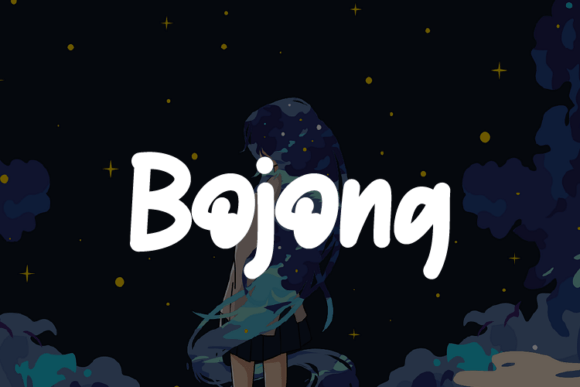
The Bojong Font: A Modern Elegance for Creative Minds
I’ll never forget the frustration of working on a design project, hours spent perfecting every detail, only to be held back by a font that just didn’t cut it. The lines were too harsh, the curves too bland, or the overall feel just didn’t match the vibe I was going for. If you’re a designer, crafter, or creative hobbyist, I’m sure you’ve been there too. That’s why I’m excited to share with you a game-changer in the world of typography: the Bojong font.
A Personal Encounter with Bojong
Recently, I had the pleasure of working on a branding project that required a font with a modern and elegant feel. After hours of searching, I stumbled upon Bojong, and it was love at first sight. This font is designed with flexibility and readability in mind, making it perfect for a wide range of media. Whether I’m working on a logo, a brochure, or a social media post, Bojong is now my go-to choice.
An Honest Review of Bojong
- ✨ Modern and elegant design: Bojong’s sleek lines and beautiful curves make it perfect for projects that require a touch of sophistication.
- ✅ Excellent readability: This font is designed to be easy on the eyes, making it perfect for body text, headings, and titles.
While Bojong is an excellent font, there are a few minor quirks to be aware of:
- ⚠️ Some glyphs may require additional setup: While Bojong’s OpenType features are easy to use, some glyphs may require a bit of extra work to get them up and running.
The Story Behind Bojong
Bojong was designed with the goal of creating a modern and elegant font that’s perfect for a wide range of media. The design team behind Bojong drew inspiration from classic typography and modern design trends, resulting in a font that’s both timeless and cutting-edge.
| Author | Eric Kusuma |
Q: Does Bojong support OpenType features?
A: Yes, Bojong supports OpenType features, including stylistic alternates, ligatures, and glyphs, making it perfect for designers who want to add some extra flair to their projects.
Q: Is Bojong suitable for body text?
A: Yes, Bojong is designed to be easy on the eyes, making it perfect for body text, headings, and titles.